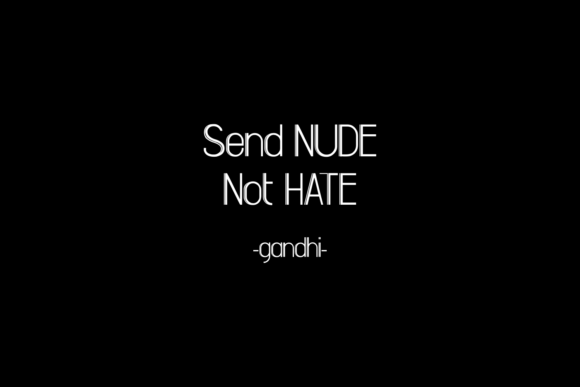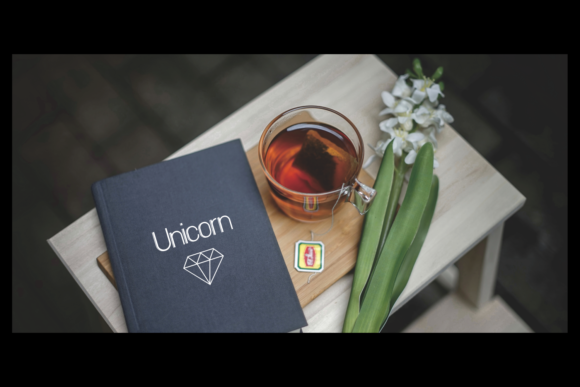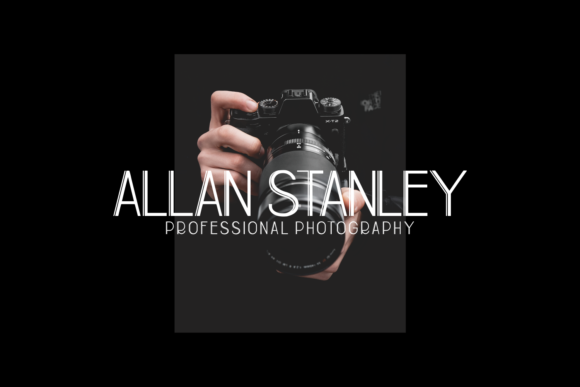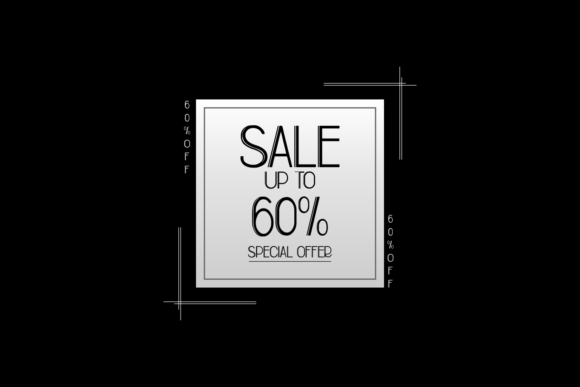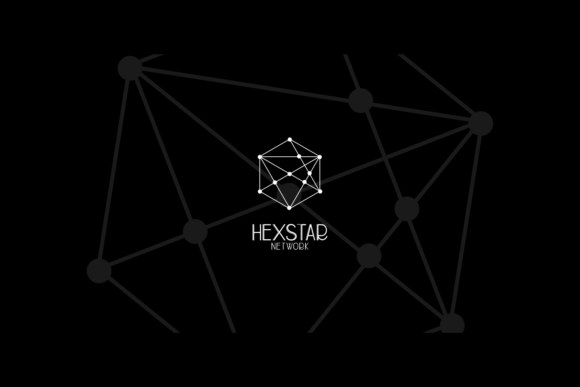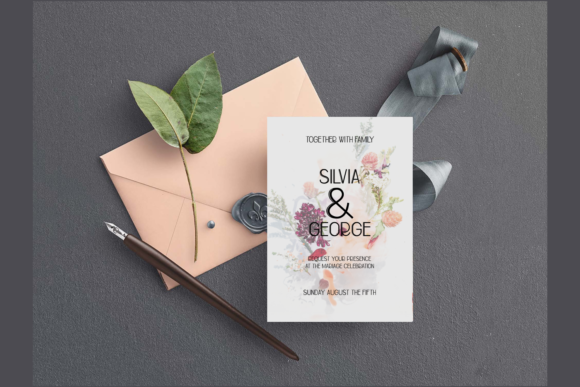
Introduction to Leviona Font
Remember that moment when you’re working on a creative project and you’re struggling to find the perfect font to match your design’s tone and style? It’s like trying to find a missing piece of a puzzle. But what if you stumbled upon a font that perfectly complements your vision and elevates your design to the next level? That’s exactly what the Leviona Font can do for your projects.
As a sophisticated sans serif font, Leviona Font boasts a dynamic and modern feel that will make your designs stand out. Its neat and beautiful arrangement of letters creates a visually appealing effect that’s perfect for both formal and non-formal designs. Whether you’re working on a business project or a personal creative endeavor, Leviona Font is a valuable resource that will help you achieve your design goals.
Key Features of Leviona Font
- High-quality design resource ideal for creative projects, including graphics, logos, and branding materials.
- Features a transparent background, making it easy to integrate into any design without visual distractions.
- Designed with a unique and elegant style, perfect for adding a touch of sophistication to any creative project.
- Supports high-resolution displays, making it perfect for use in print and digital applications.
Honest Review: Leviona Font
I recently had the chance to work with the Leviona Font for a creative project, and I must say it’s a fantastic addition to any design resource.
Here are some of the things that work well: ✨ High quality and crisp typography, perfect for body text or headings. ✨ Excellent legibility, even at smaller font sizes. ✨ The font includes a transparent background, making it easy to use with any background image or color.
Now, let’s talk about the limitations: ⚠️ The font family is relatively small, so you may not find as many variations as you would with a more extensive font collection. ⚠️ Some users may find the font a bit too modern or trendy, which may not suit every design style.
- Perfect for body text or headings
- Excellent legibility at smaller font sizes
Leviona Font is a high-quality design resource available for free download. Its transparent background makes it perfect for creative projects requiring a sleek and modern look.
For optimal results, use Leviona Font in conjunction with high-quality images and graphics. Experiment with different font sizes and colors to create a visually appealing design.
Leviona Font is commonly used in creative projects such as logo design, branding, and infographics. Its modern and sleek design makes it perfect for a variety of applications.